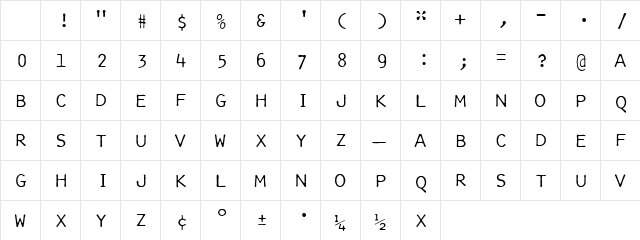
Complete IBM Selectric Manifold Regular glyph index. Displaying only characters natively supported by IBM Selectric Manifold Regular font.
IBM Selectric Manifold has a distinctly futuristic character, with geometric precision and clean angles that feel at home in technology, gaming, and sci-fi contexts.
Pro Tip: Try IBM Selectric Manifold with generous letter-spacing in UI labels and navigation - the geometric forms benefit from room to breathe.